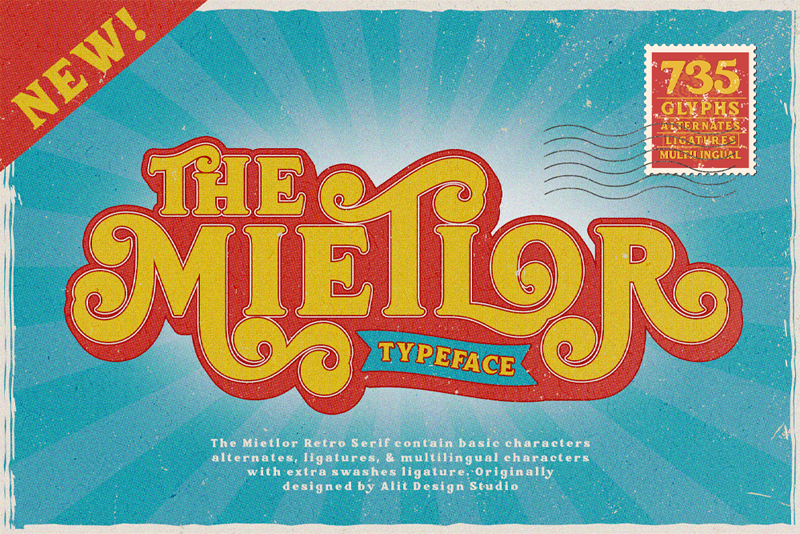
Presenting the ✨The Mietlor Typeface✨ by alitdesign. The Mietlor Typeface is inspired by stylish designs from the 80s to 90s. At that time the font style like "The Mietlor Typeface" had a firm and trendy impression. The Mietlor Typeface has a wide selection of alternative characters and swashes that make it easy to create bold retro-style designs. This is font Demo just for personal use, Not permitted for commercial use. The donation is very appreciated. Please check here for more info about the license: https://alitdesign.net/license/ DOWNLOAD FULL VERSION AND FOR COMMERCIAL USE: https://alitdesign.net/product/mietlor-typeface/ Creative Market: https://creativemarket.com/alitdesign/10948690-Mietlor-Typeface visit my website for full version and commercial use: https://alitdesign.net/ follow my Instagram to update my portfolio: https://www.instagram.com/alitdesign_studio/ Email : info@alitdesign.net |